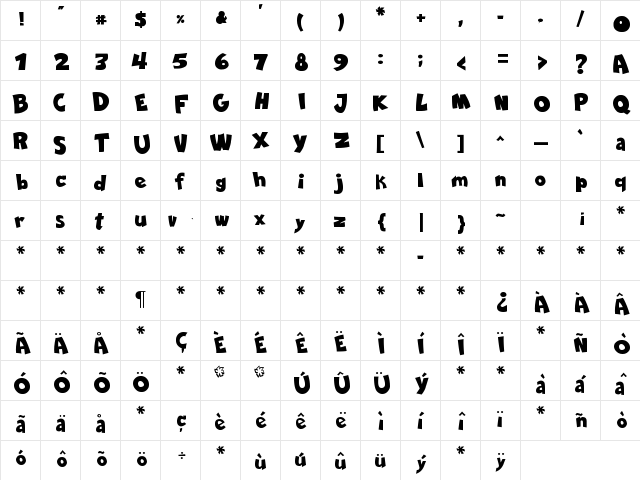
Comica BD Bold Regular Font Preview
Comica BD Bold Regular
Comica BD Bold Regular Font Details
Design Context for Comica BD Bold Typeface
Comica BD Bold trades formality for fun, with bouncy, characterful letterforms that bring warmth and energy to any project.
Font Pairing: Pairs well with a rounded or humanist sans for body copy, maintaining the friendly tone without relying on Comica BD Bold to carry extended reading.
Pro Tip: Use Comica BD Bold at larger display sizes where its expressive character can land. Pair with a clean, simple sans for body copy to maintain readability.